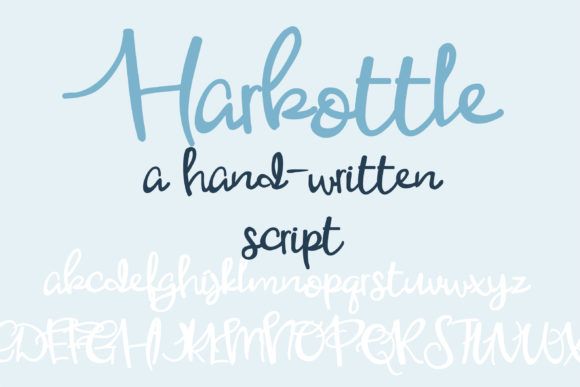
Dive into the world of PN Harbottle, where elegance meets authenticity. This mesmerizing script font collection, lovingly crafted by Illustration Ink, embodies the beauty of handwritten artistry. It's like having a personal calligraphy master at your fingertips!
Prepare to be captivated by the fluid strokes and graceful curves of PN Harbottle. As your fingers dance across the digital canvas, these fonts will transform your words into breathtaking works of art. Each letter feels as if it has been lovingly penned, carrying with it a touch of timeless charm.
The PN Harbottle Font Family is a symphony of versatility, offering three distinct weights to suit any creative endeavor. From delicate whispers to bold proclamations, this font family empowers you to express yourself in a myriad of ways.
As if that wasn't enough, you'll also receive a captivating stenciled version of PN Harbottle, opening up endless possibilities for eye-catching designs. Imagine your words standing out on posters, invitations, and branding materials with a touch of urban flair.
Whether you're a seasoned designer or just starting your creative journey, the PN Harbottle Font Family is your passport to creating designs that ignite emotions and leave a lasting impression. Don't miss out on this opportunity to elevate your digital creations with the magic of handwritten elegance.